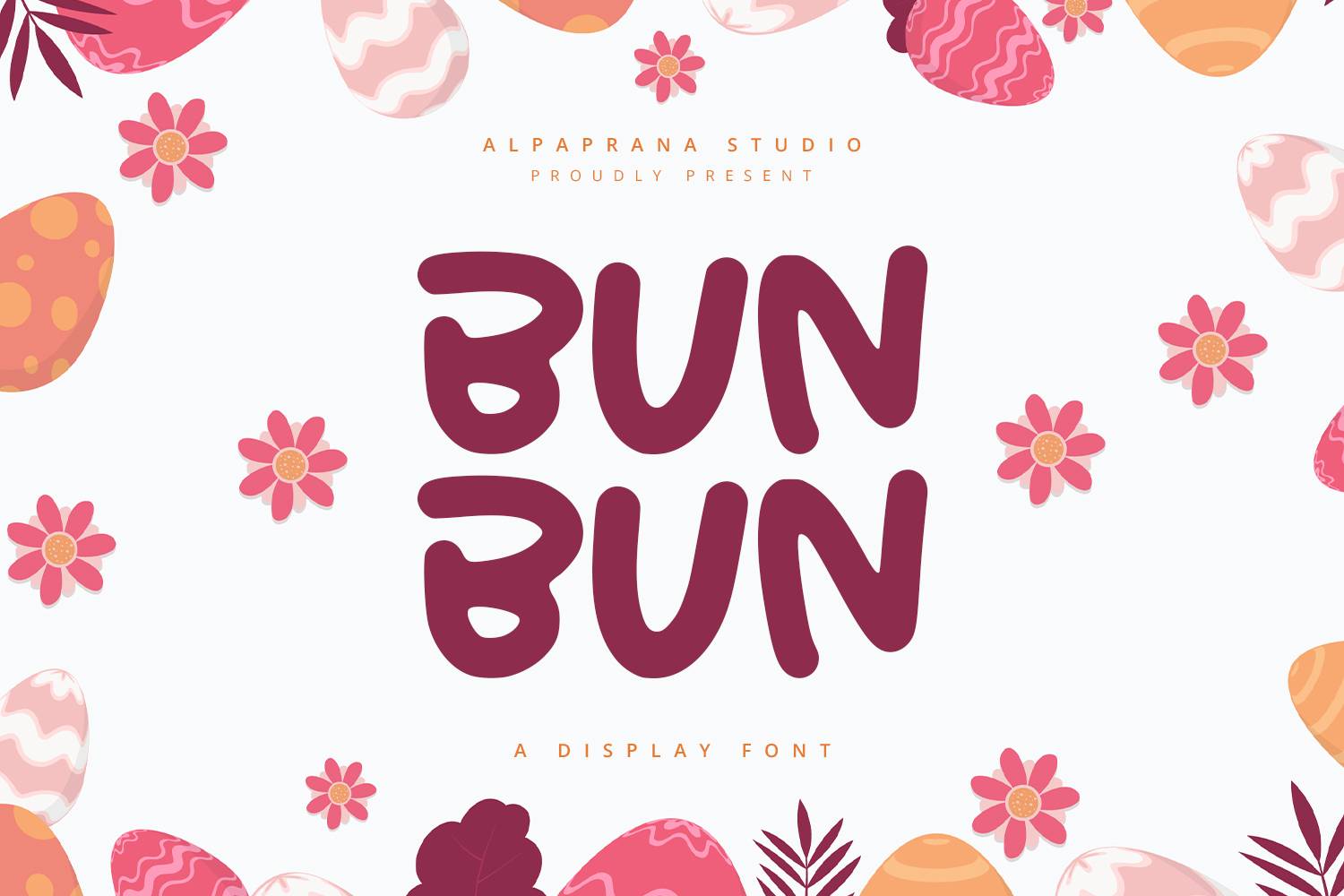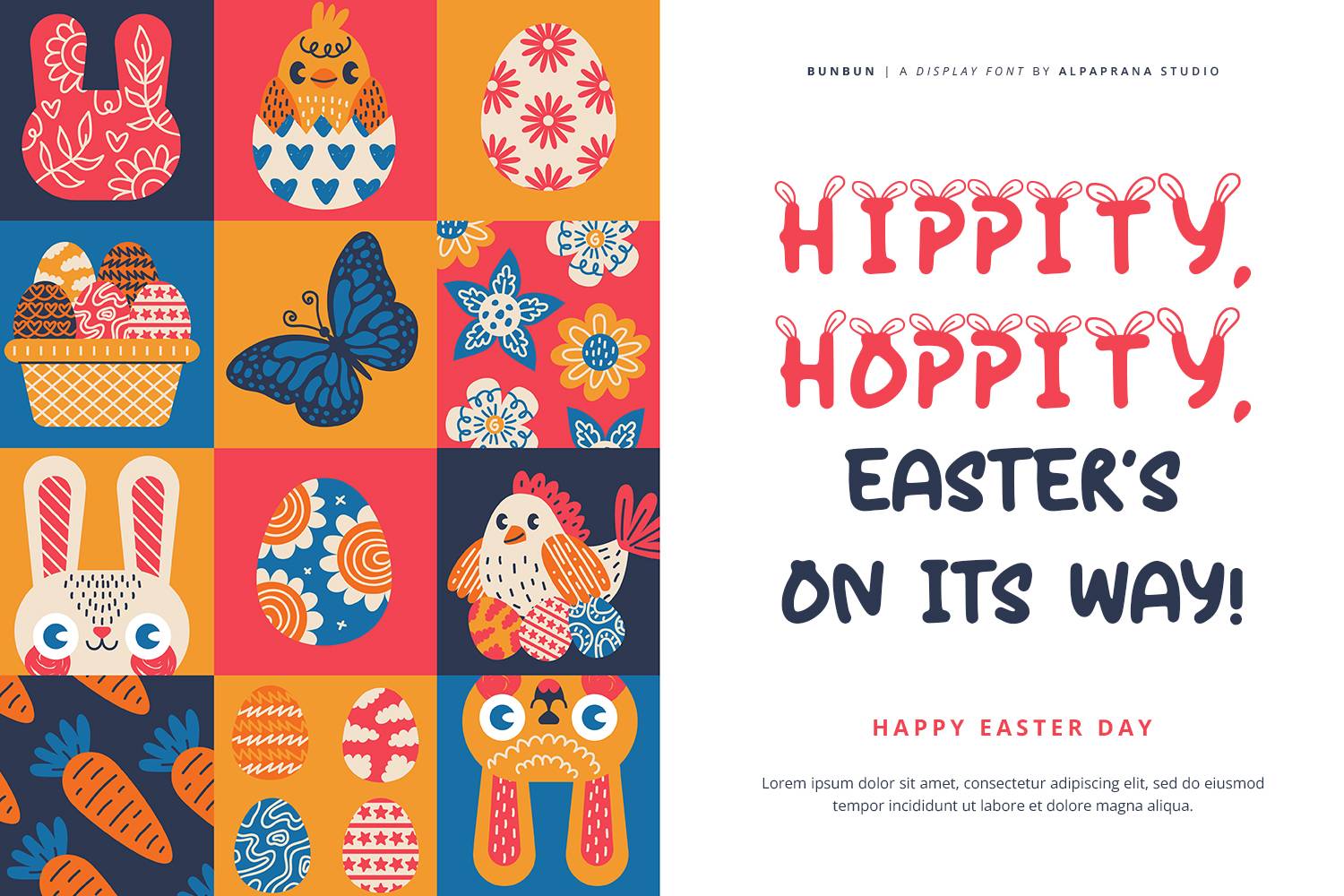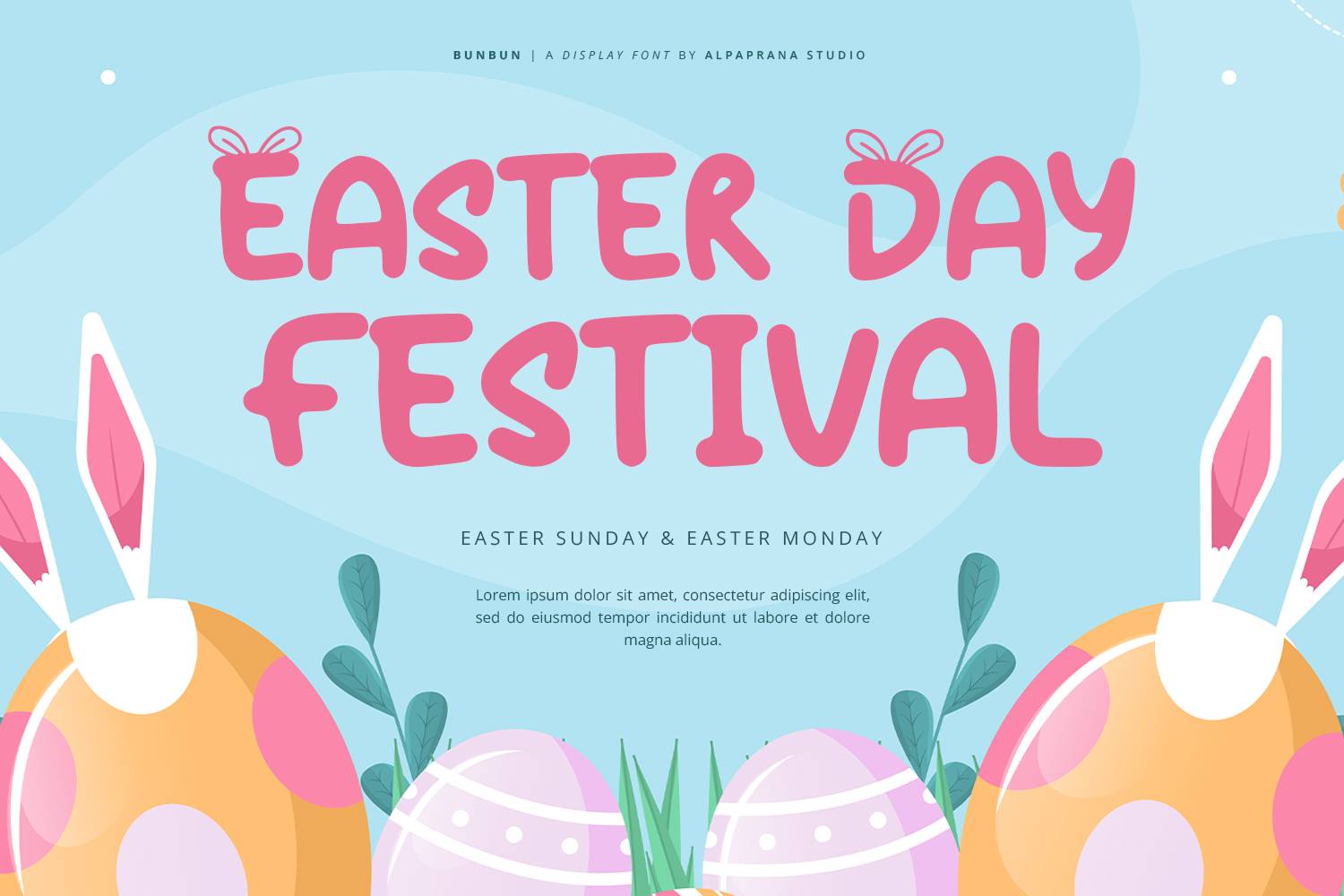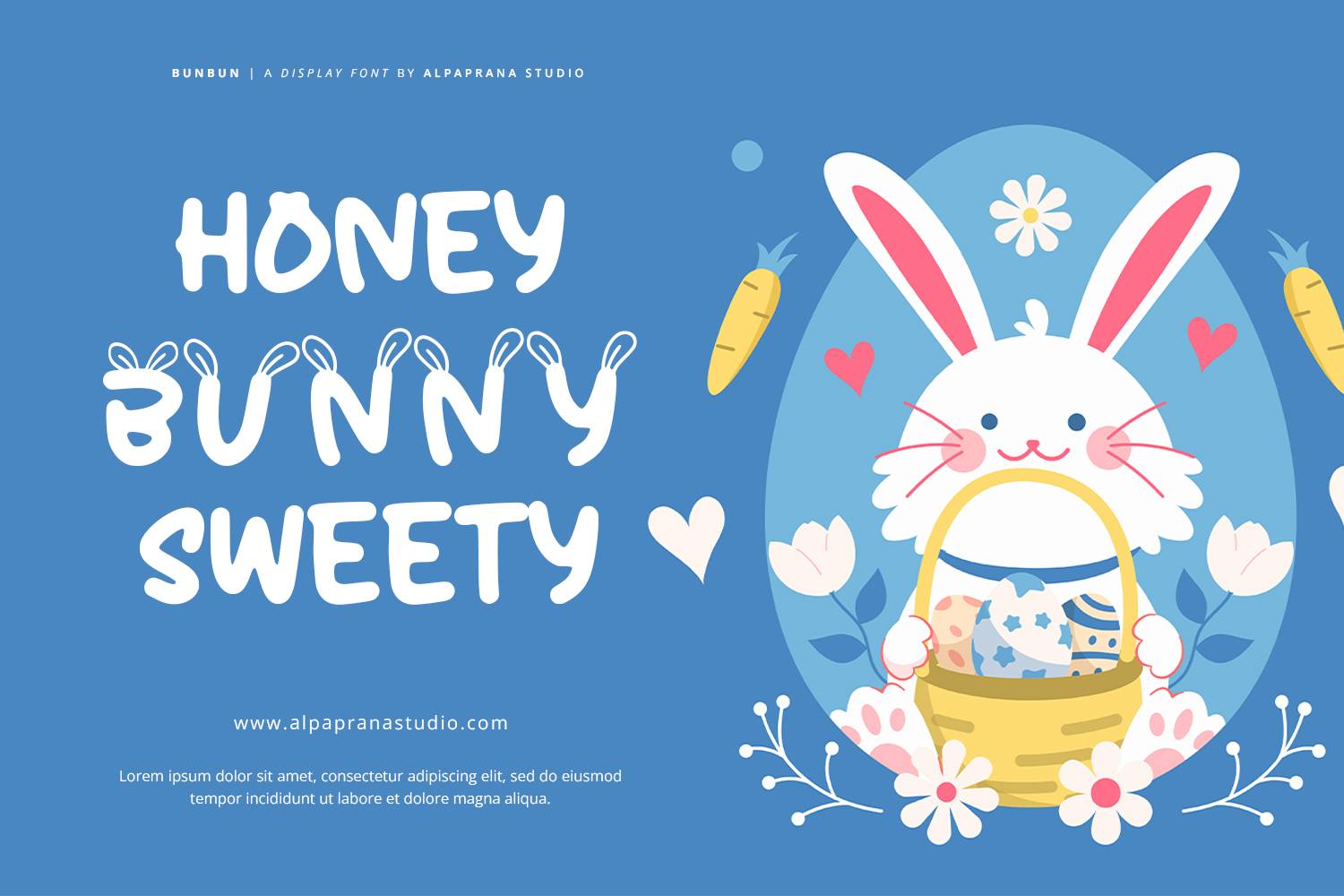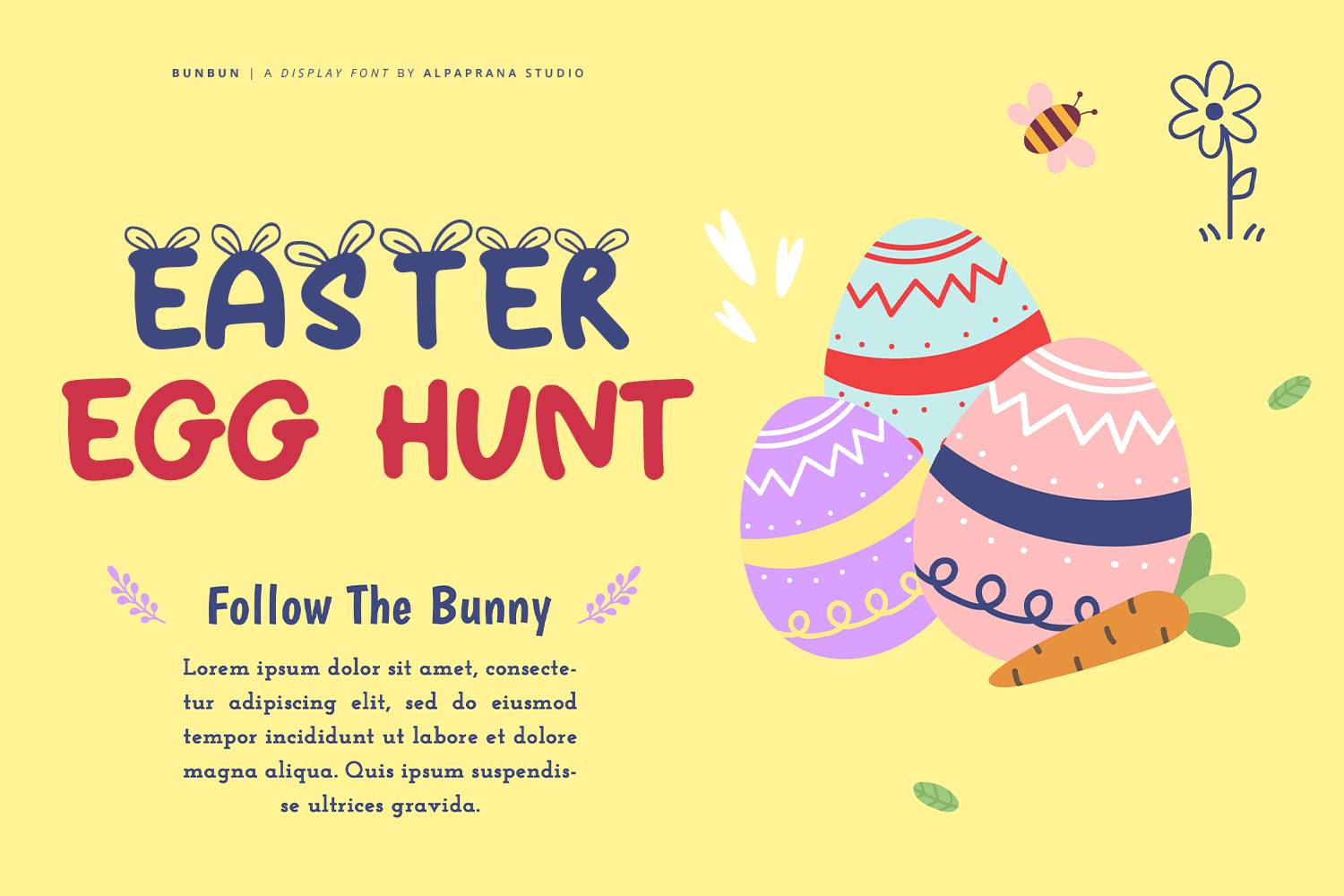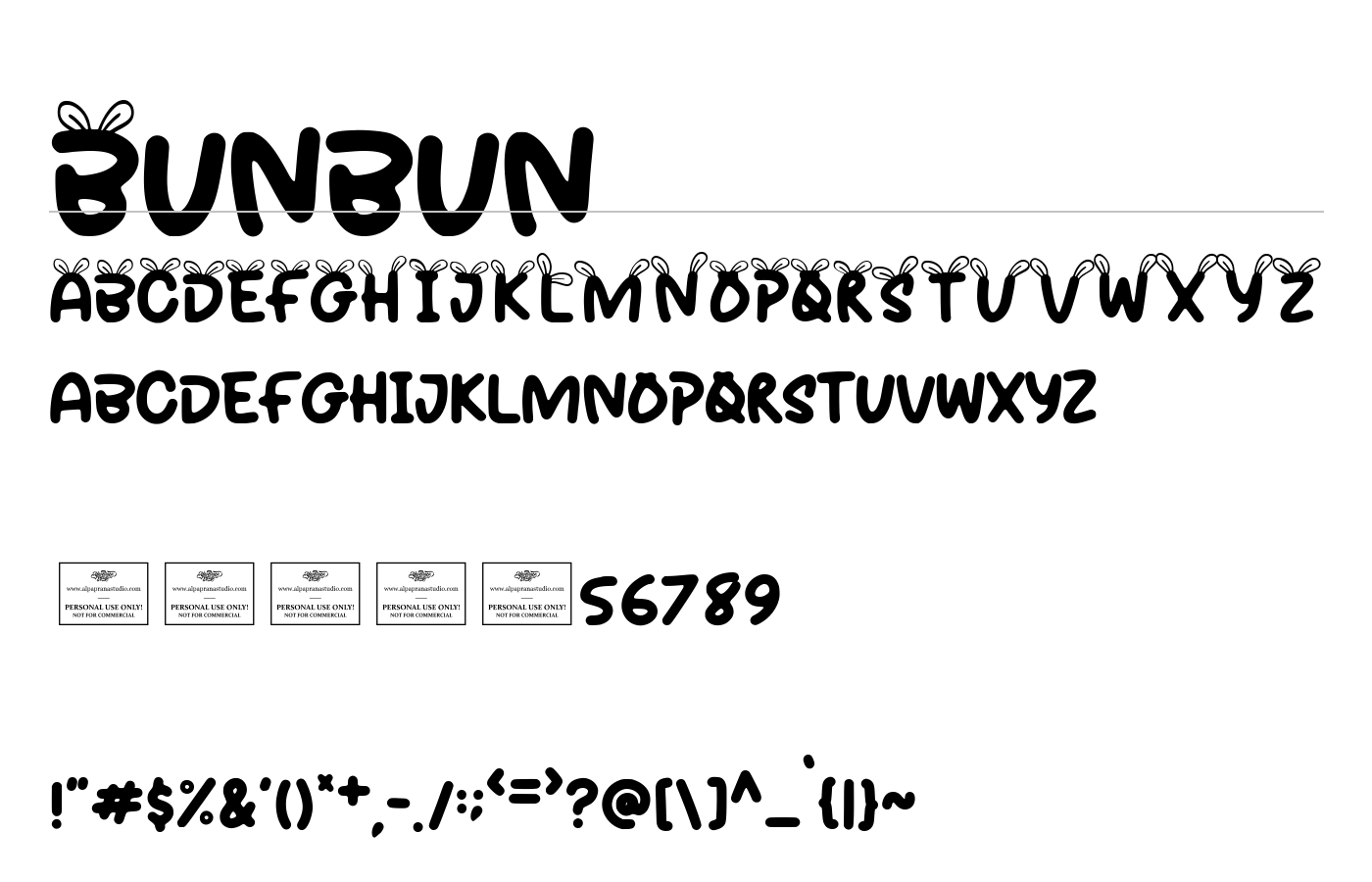
Bunbun is a playful, bold sans serif font with rounded, thick strokes and an informal hand-drawn feel. It features quirky, friendly letterforms with charming decorative elements, making it perfect for children's designs, casual branding, and fun headlines. This font adds a whimsical and approachable personality to any creative project.